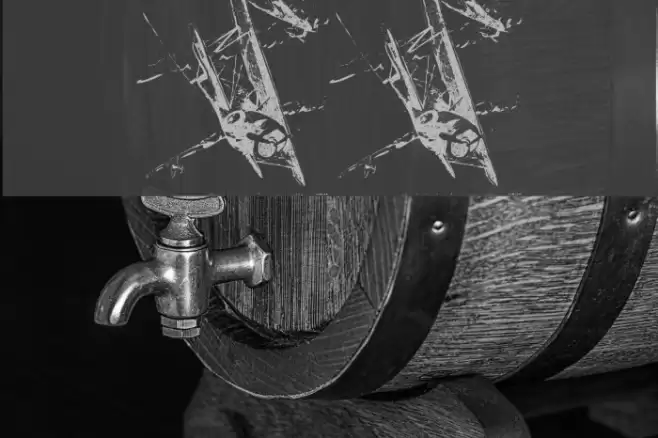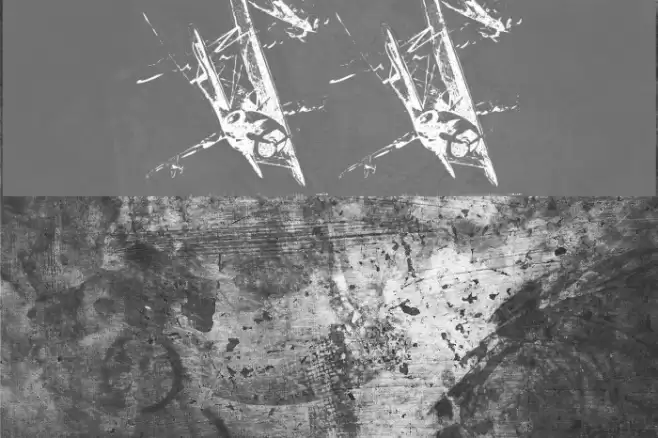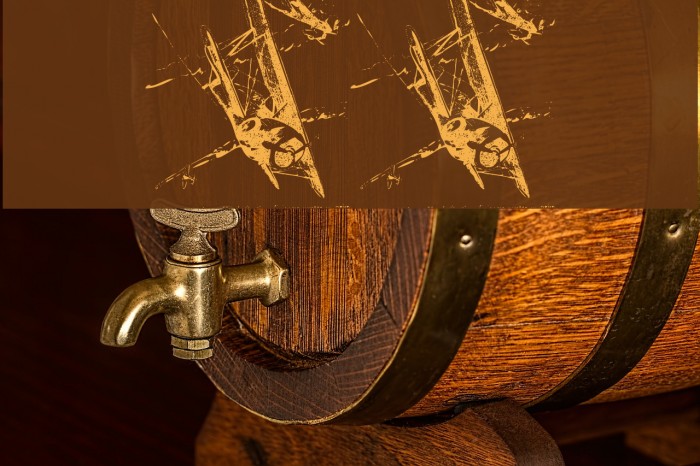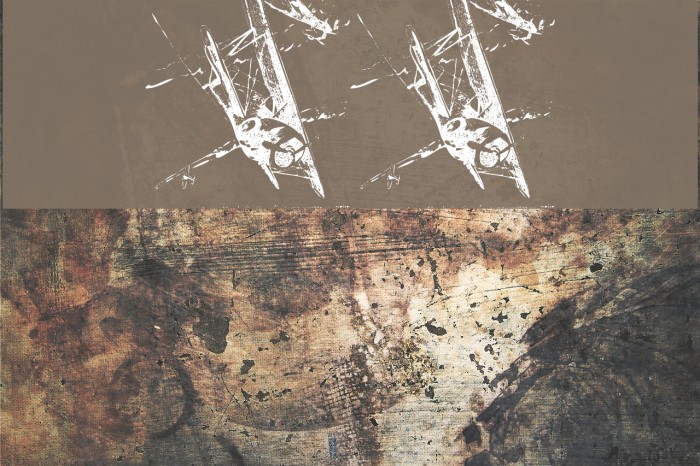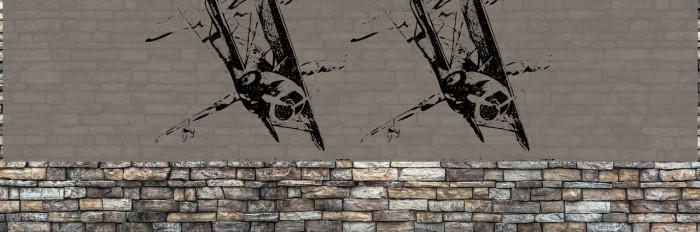
world war II warplanes 2 Font
world war II warplanes 2 Description
A highly decorative and illustrative font where each character is represented by a detailed silhouette of a World War II warplane, incorporating grunge and distressed effects for a dynamic, textured appearance.
A display font featuring WWII warplane silhouettes as characters from Dingbats fonts.
- Proposed Projects: Posters, themed event invitations, historical displays, video game titles, educational materials about aviation or WWII.
- Overall Style: Decorative, Grunge, Thematic
- Use Case: Logos, Headlines, Posters, Themed graphics